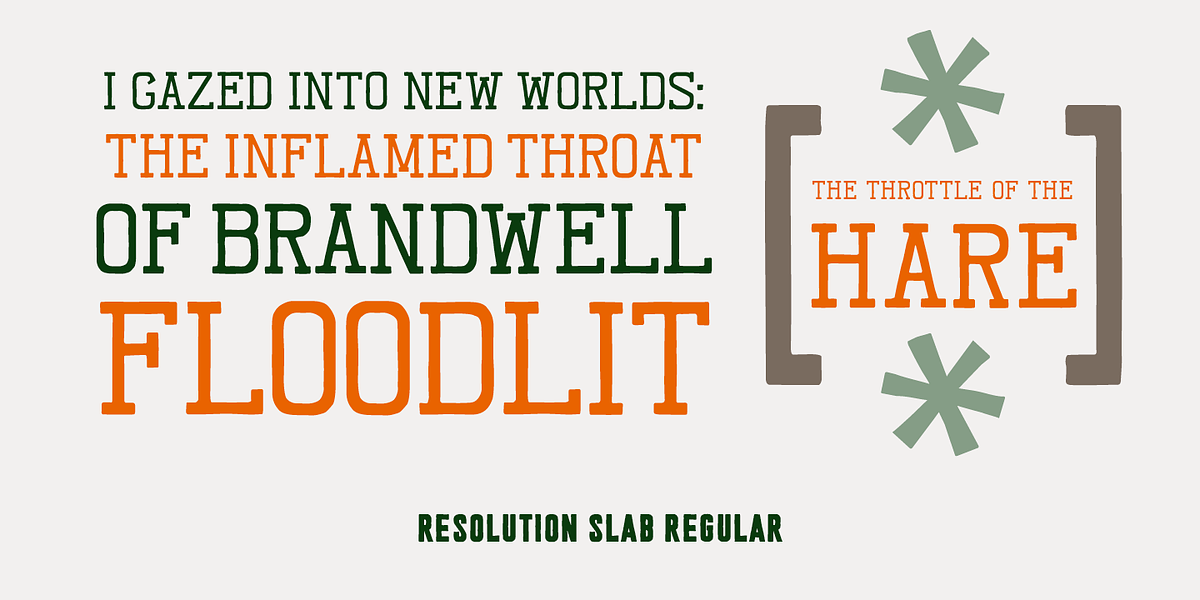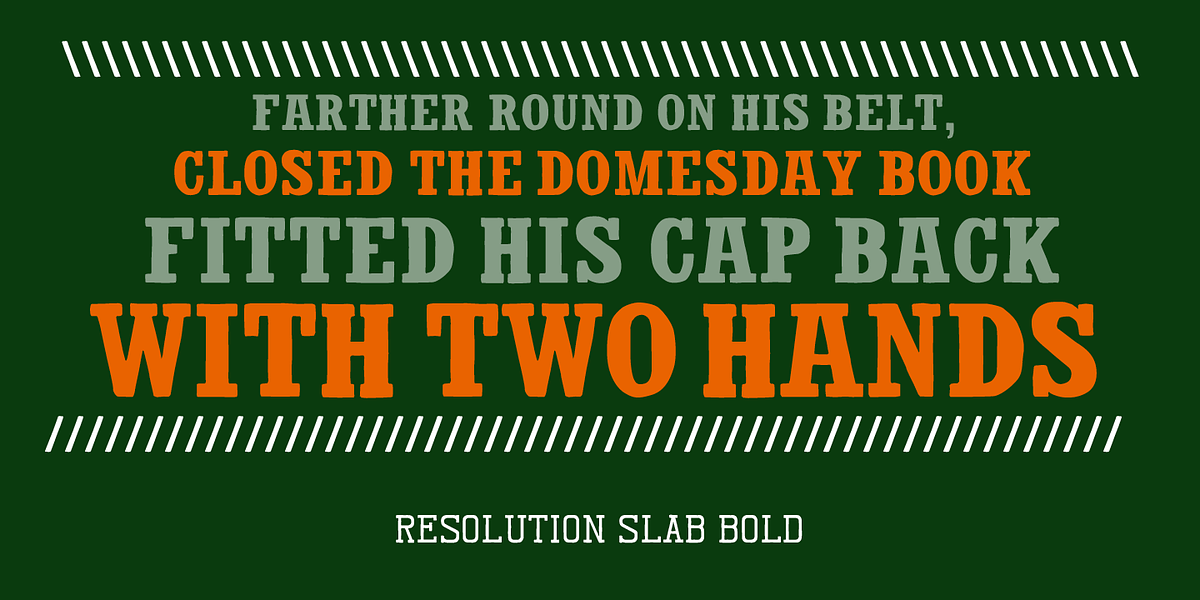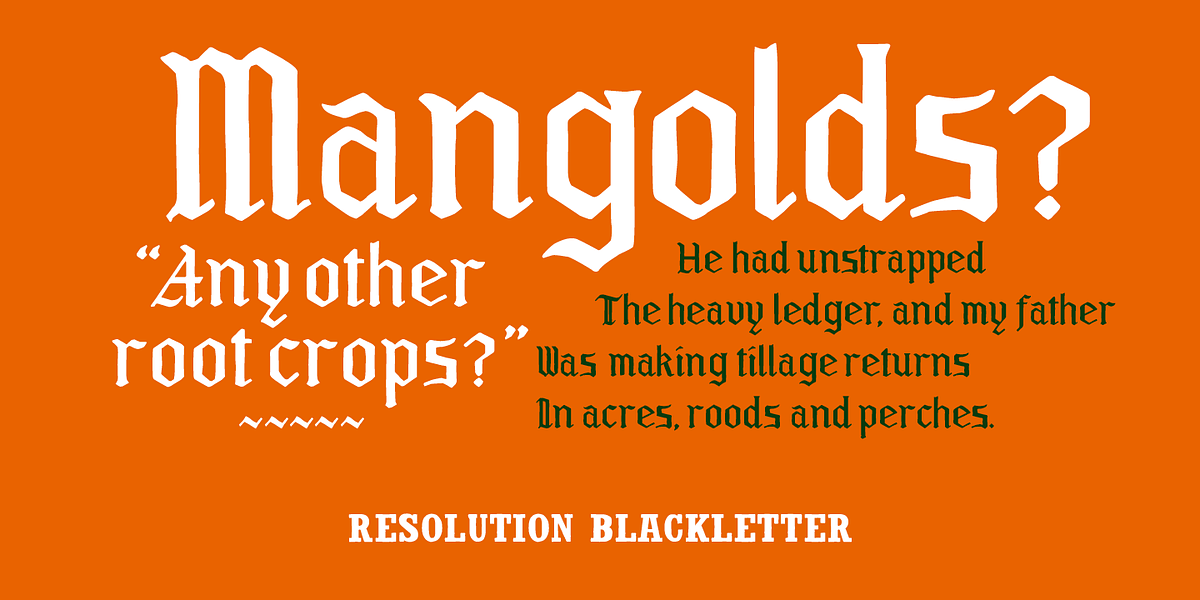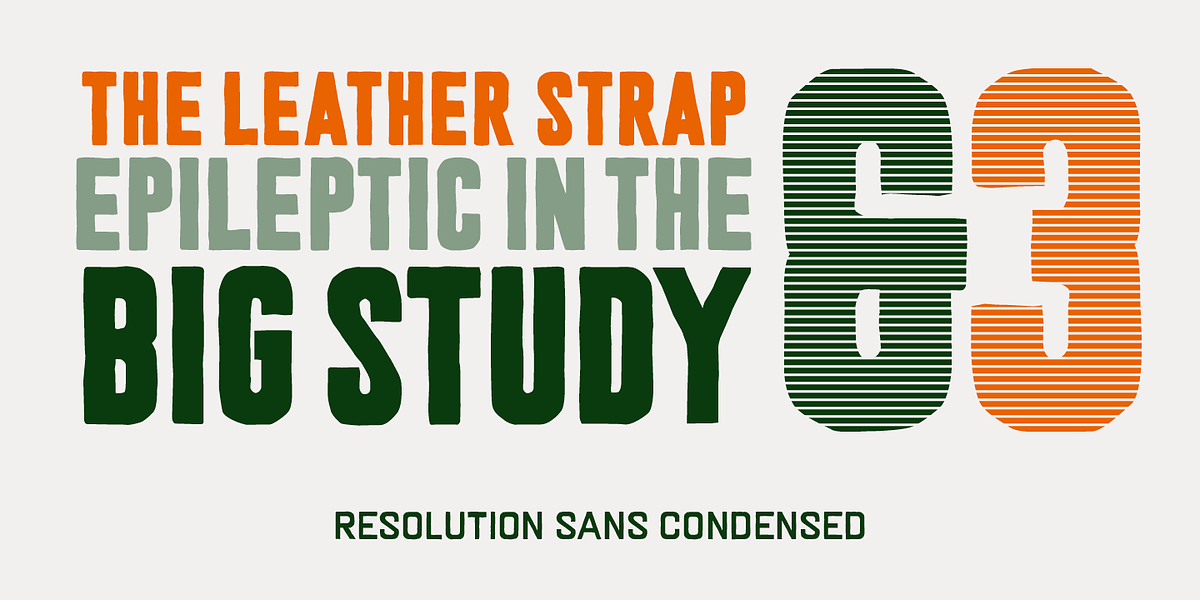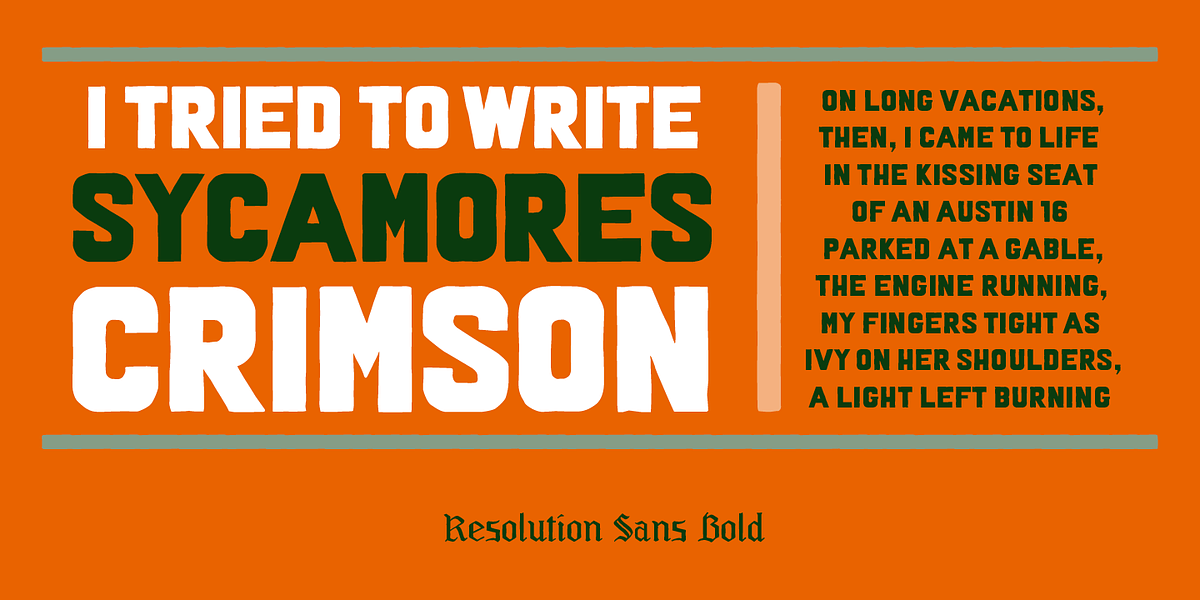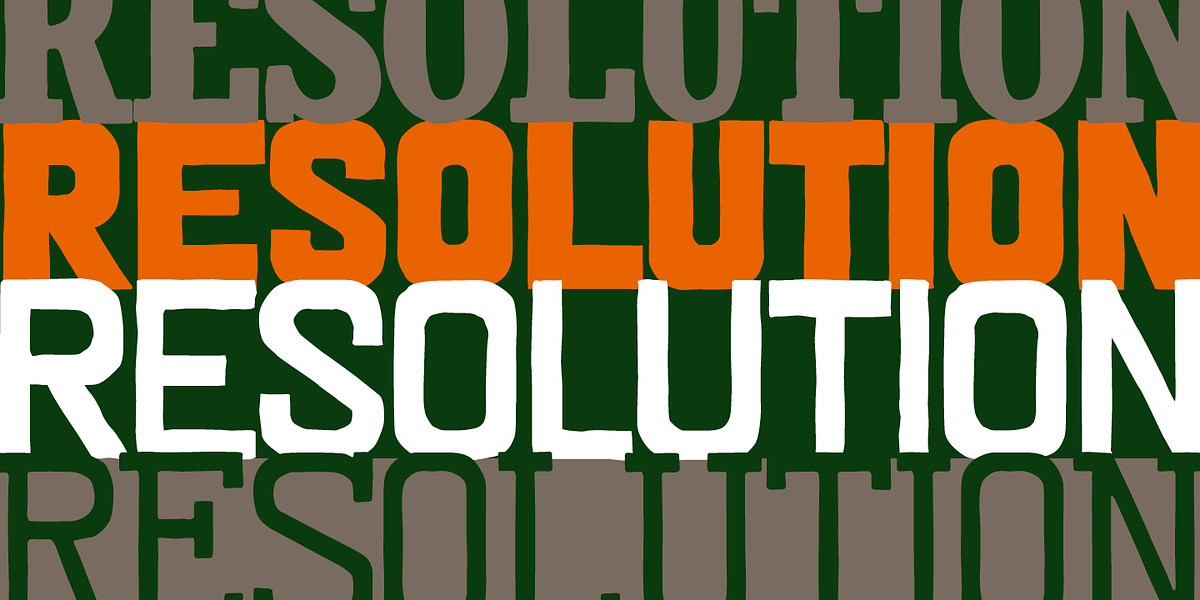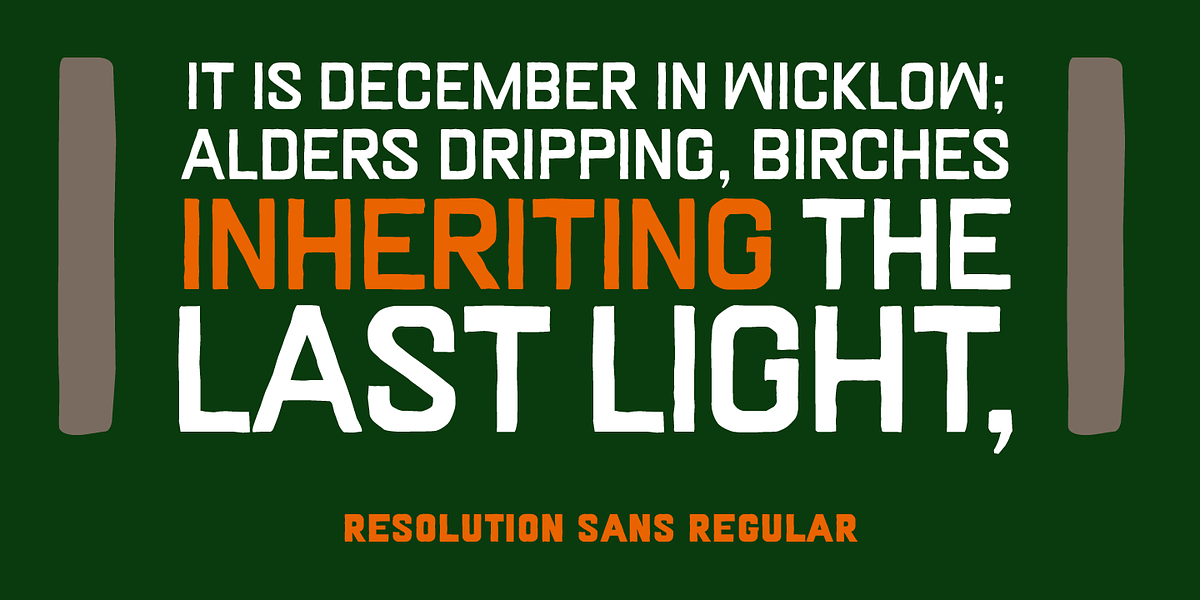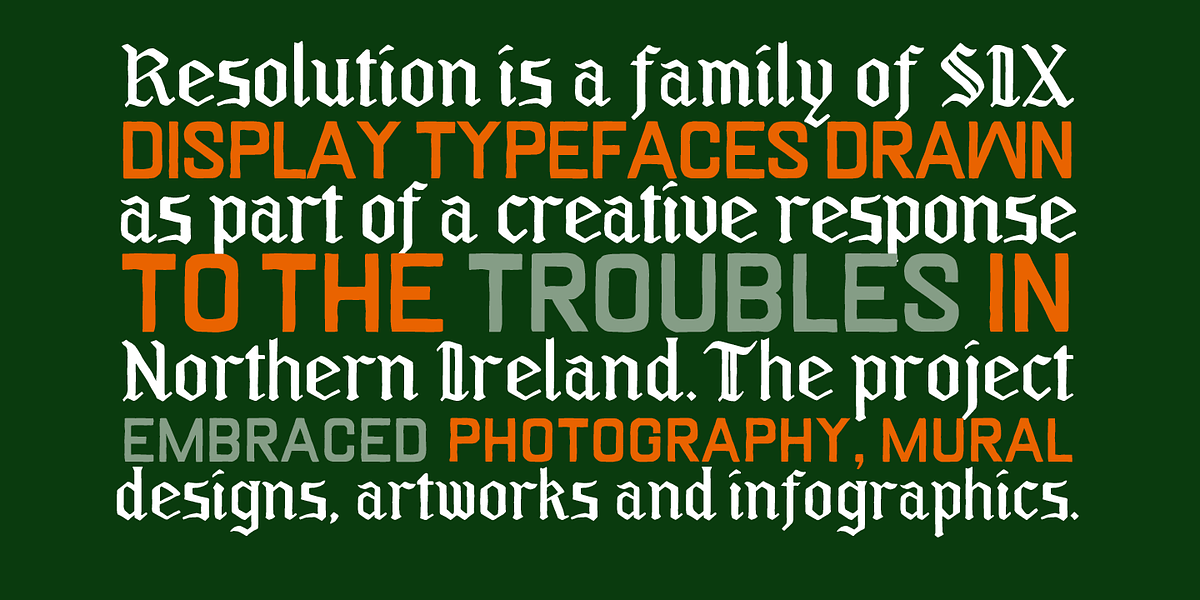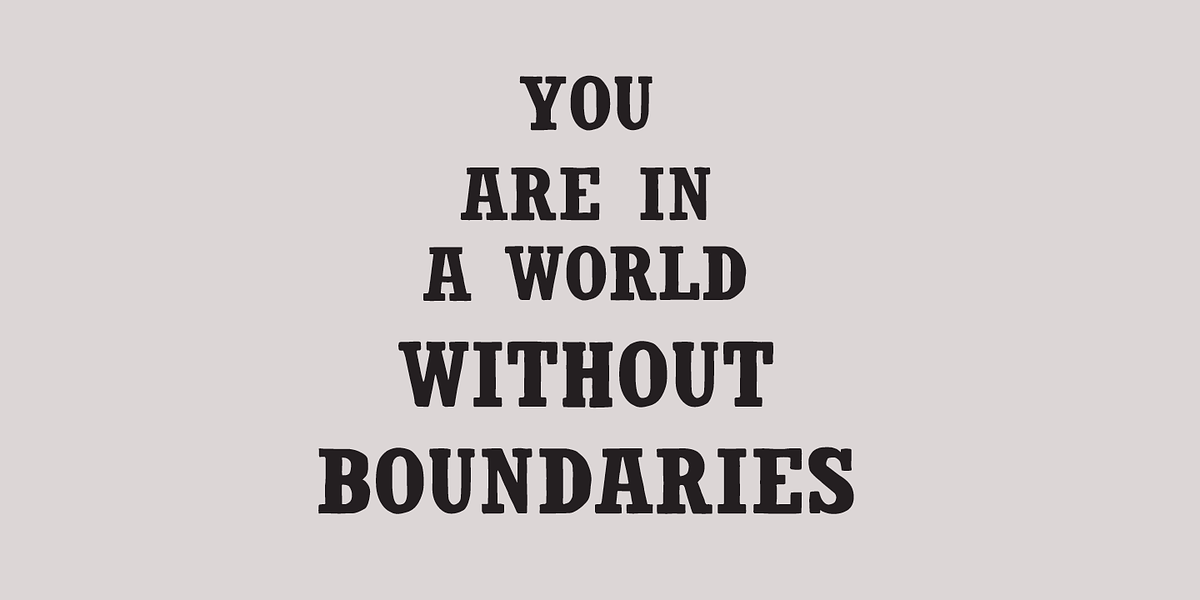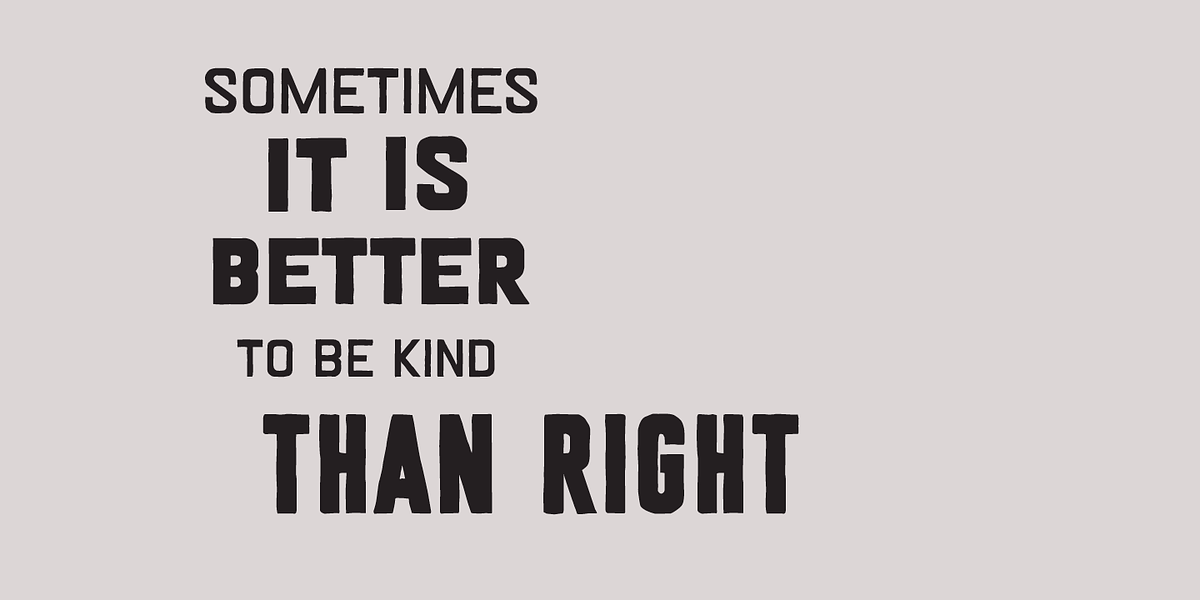
Resolution
Resolution is a family of display typefaces designed by Barnbrook as part of a creative response to the political situation in Northern Ireland. The font family includes six weights across three stylistic variants: Blackletter, Slab and Sans. Its design is characterized as bold, rough, and geometric with handmade elements.